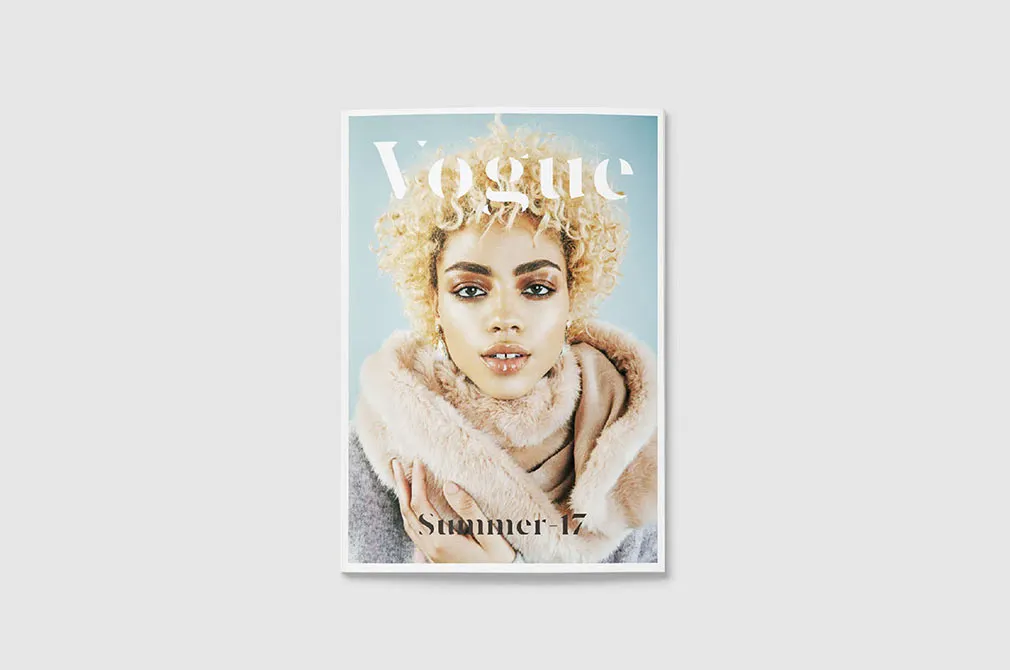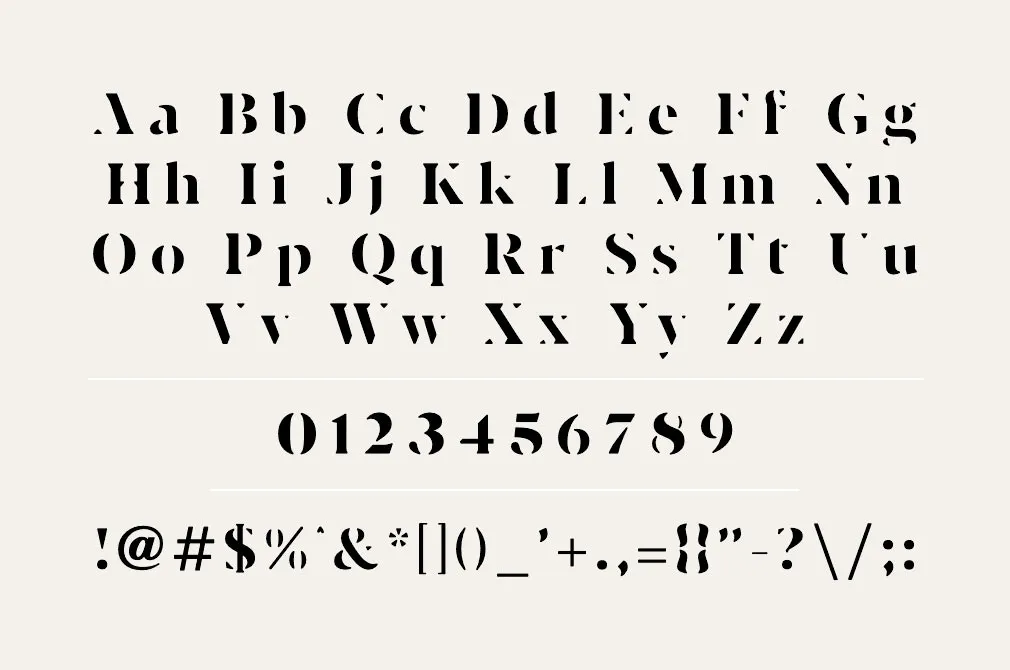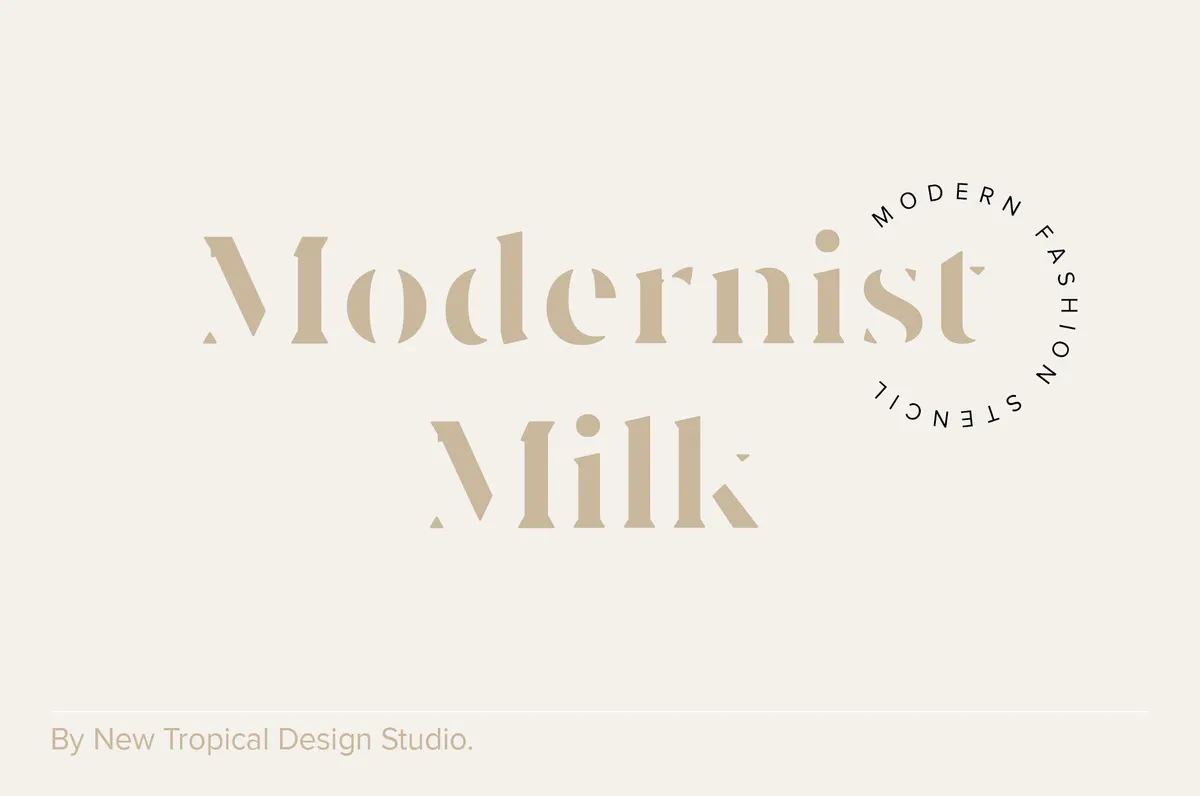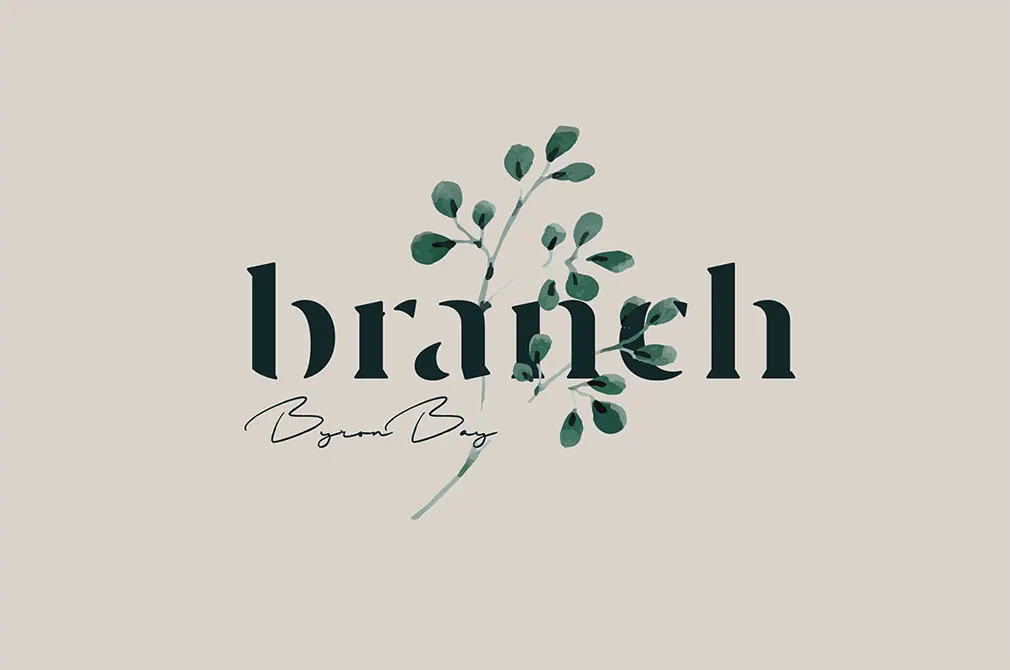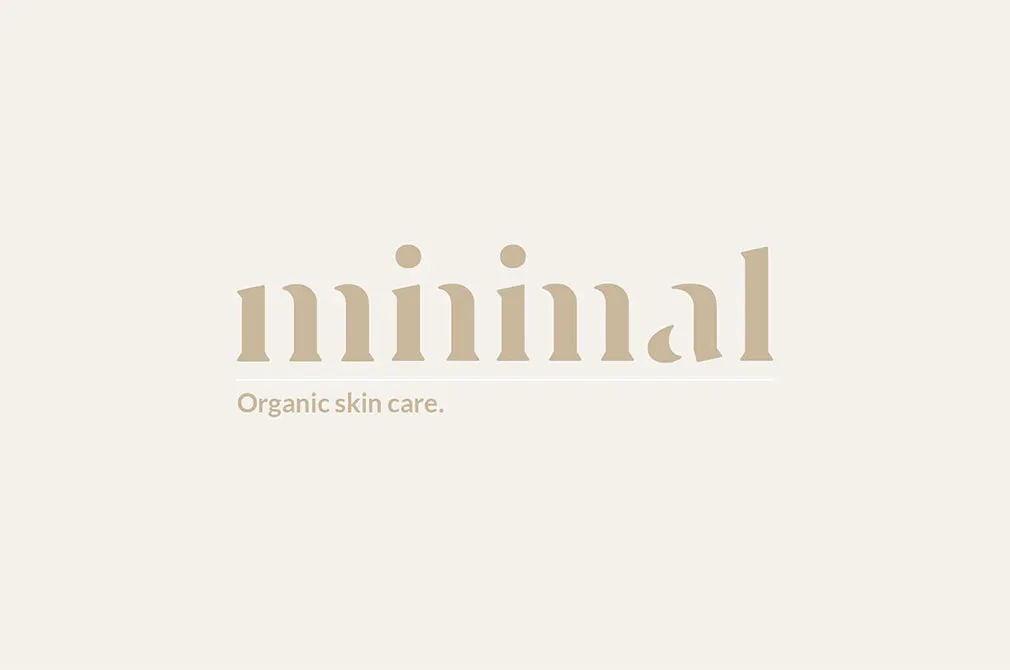
Modernist Milk Stencil Font
We're happy to introduce you the universal font, looking good with thin scripts and sans-serifs! More importantly, it embodied the modernism and classics simultaneously, isn't it amazing?
Yes, it is! Because Modernist Milk Stencil Serif Font is exactly what we've described. The hard forms with soft round edges are so diverse and complementary in their expression no doubt, it's a winning hand. Being a versatile font, it fits any logo or label design, takes part in working on a fashion blog or magazine and just represents a nice piece of attiring typography anywhere you place it. The font is packed with capitals, lowercase, numbers and punctuation so as to not leave any single detail without a proper touch!